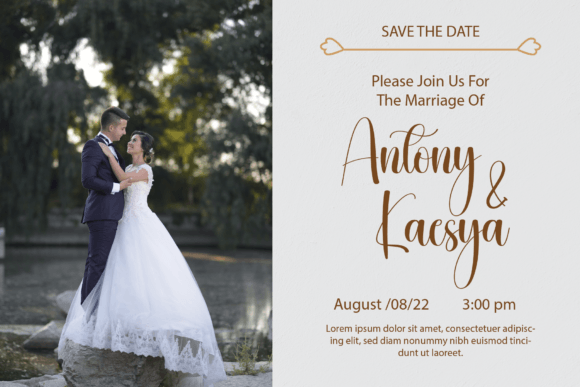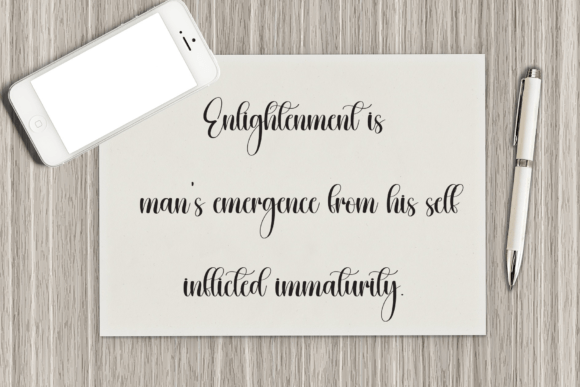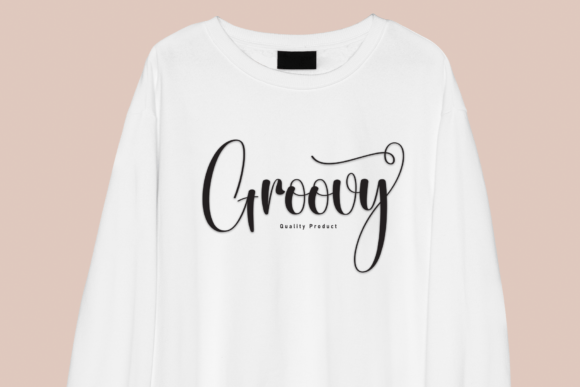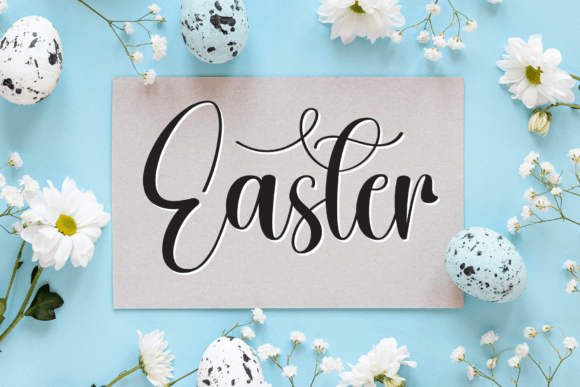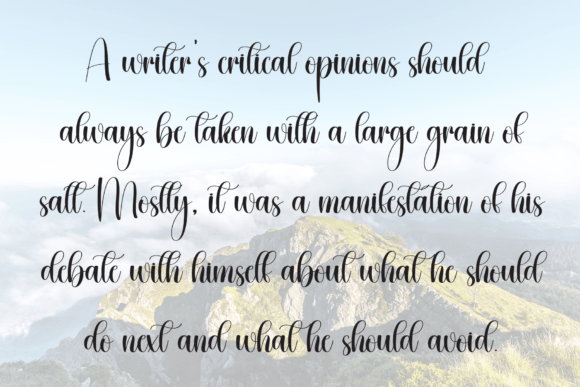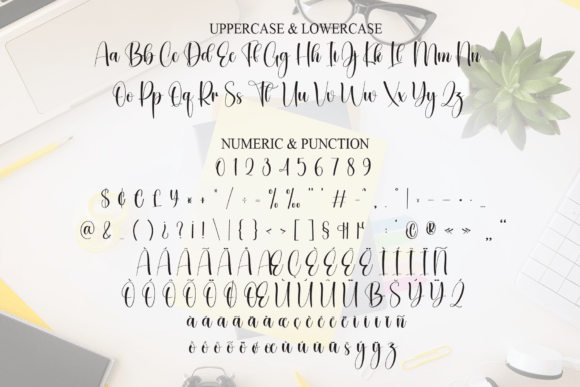
Introducing Daily Duty Font: Elevate Your Designs with Elegance and Personality
In the world of typography, a font can make or break the aesthetic of a design. For designers and crafters looking to add a touch of sophistication and charm to their projects, Daily Duty Font is an exceptional choice. This modern and charming handwritten font is designed to exude elegance and personality, making it perfect for upscale invitations, personal branding, and chic editorial designs.
The Characteristics of Daily Duty Font
Daily Duty Font boasts graceful, flowing strokes that give it a refined and sophisticated character. Its unique blend of modernity and classic charm makes it an excellent addition to any design project. The font’s elegant appearance is perfect for creating visually appealing and engaging content that stands out from the crowd.
Perfect for Upscale Invitations and Personal Branding
When it comes to creating upscale invitations, personal branding, or chic editorial designs, the font used can greatly impact the overall look and feel of the project. Daily Duty Font is specifically designed to elevate your projects with its refined allure and warmth. Its sophisticated character makes it an excellent choice for:
- Personal branding and logos
- Chic editorial designs and magazines
- High-end product packaging and labels
- Formal event invitations and programs
Why Choose Daily Duty Font?
With so many fonts available, why choose Daily Duty Font? Here are just a few reasons why designers and crafters are falling in love with this beautiful handwritten font:
- Elegance and sophistication: Daily Duty Font exudes refinement and poise, making it perfect for high-end designs.
- Unique character: Its modern and charming handwritten style sets it apart from more traditional fonts.
- Versatility: Daily Duty Font can be used for a wide range of design projects, from invitations to editorial designs.
- Easy to read: Despite its elegant appearance, Daily Duty Font remains easy to read, making it perfect for body text and headlines.
Tips for Using Daily Duty Font
To get the most out of Daily Duty Font, here are a few tips to keep in mind:
- Pair with contrasting fonts: Combine Daily Duty Font with a contrasting font to create visual interest and hierarchy in your design.
- Use for headlines and titles: Take advantage of Daily Duty Font’s elegant appearance by using it for headlines and titles.
- Experiment with colors and textures: Add depth and interest to your design by experimenting with different colors and textures.
Daily Duty Font is a beautiful and elegant handwritten font that is sure to elevate your design projects. Its refined allure and warmth make it perfect for upscale invitations, personal branding, and chic editorial designs. With its unique character, versatility, and ease of use, Daily Duty Font is an excellent addition to any designer’s toolkit.